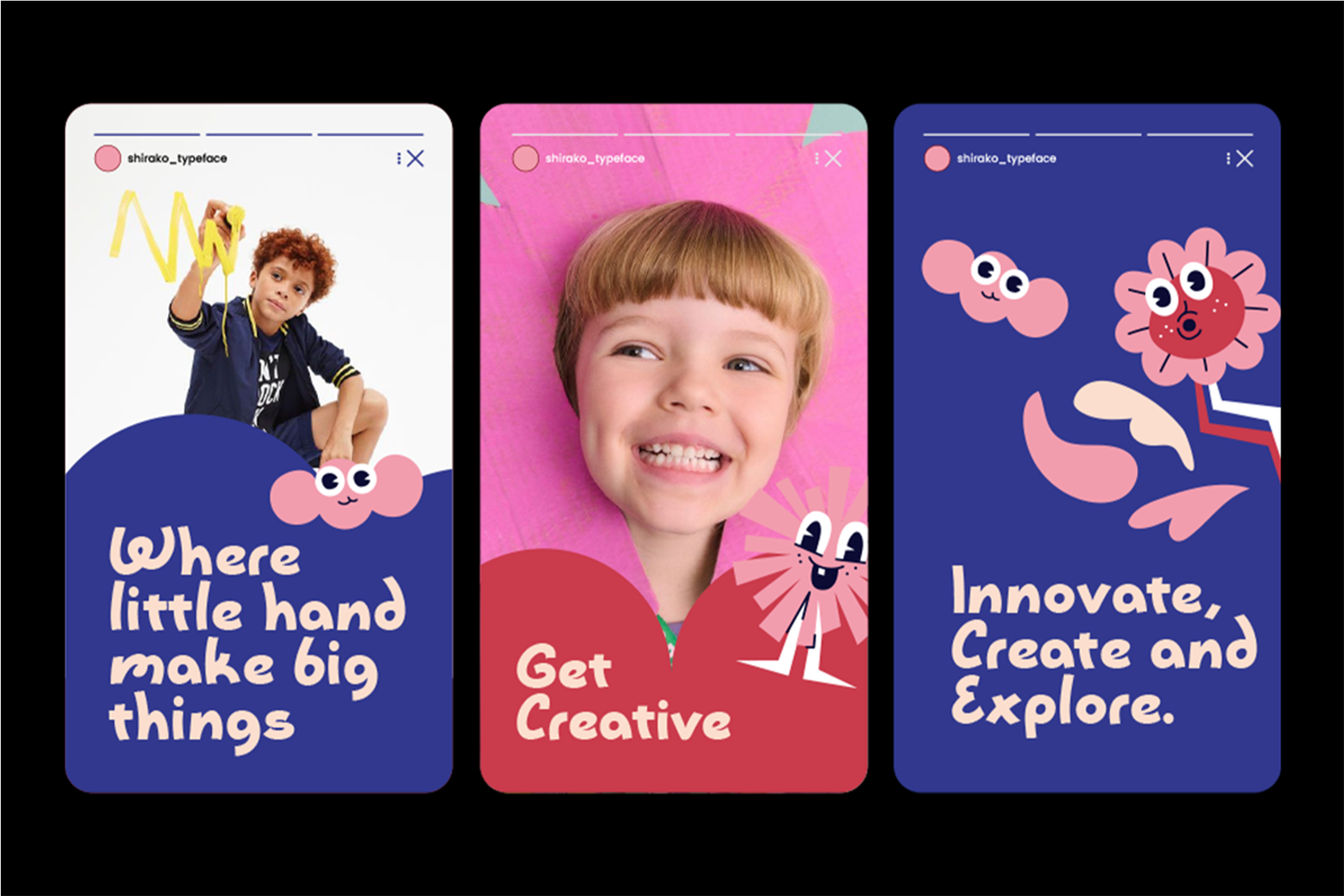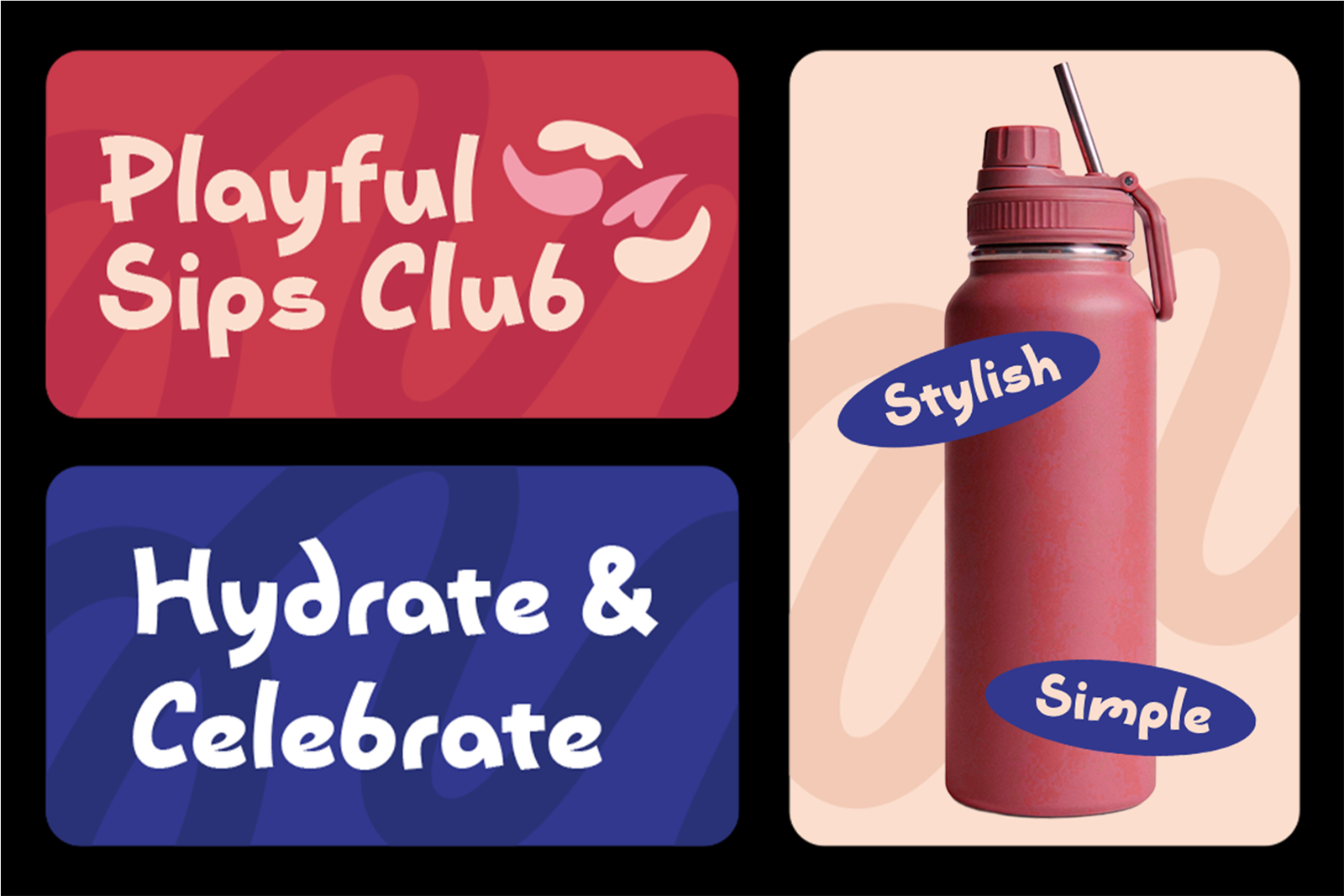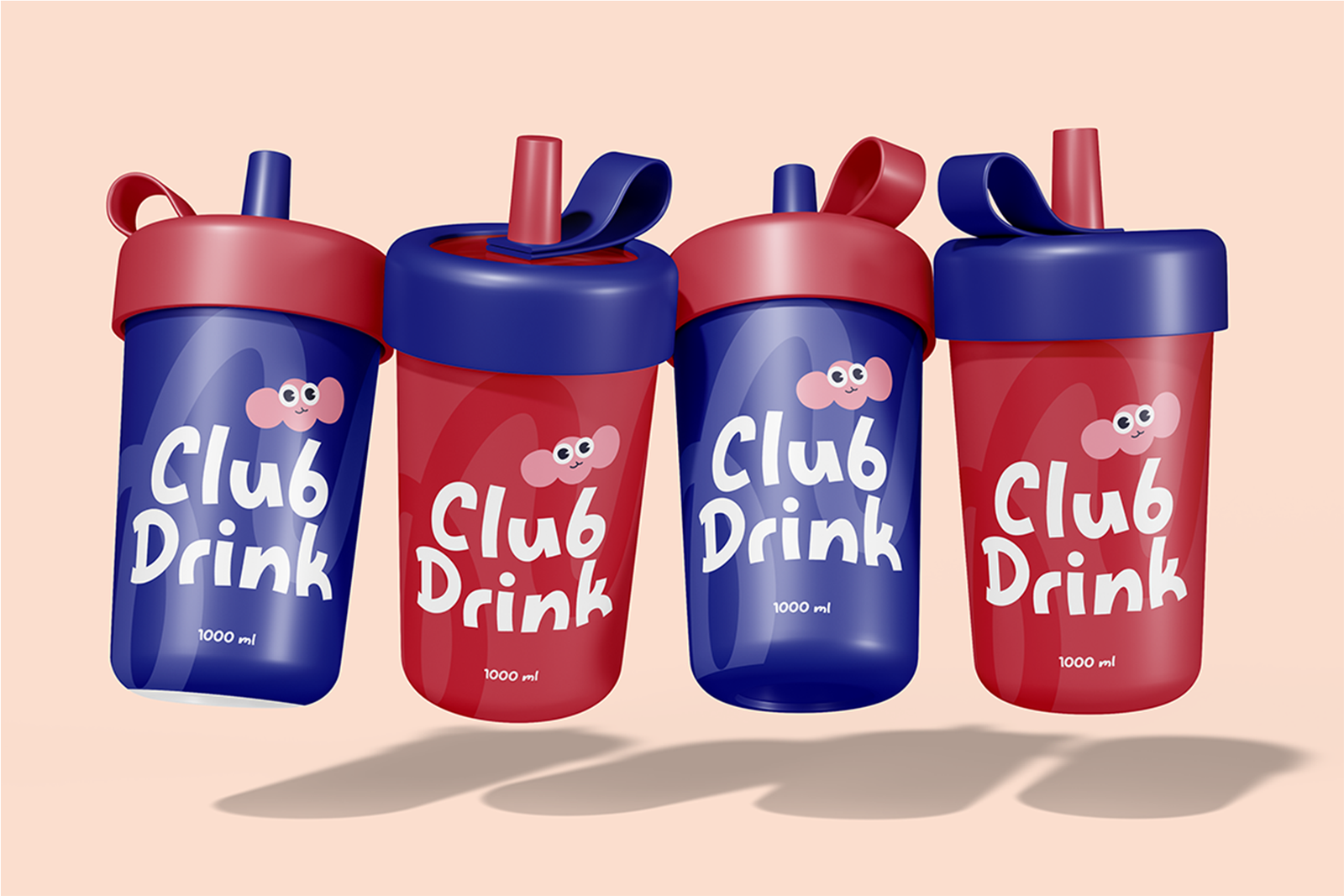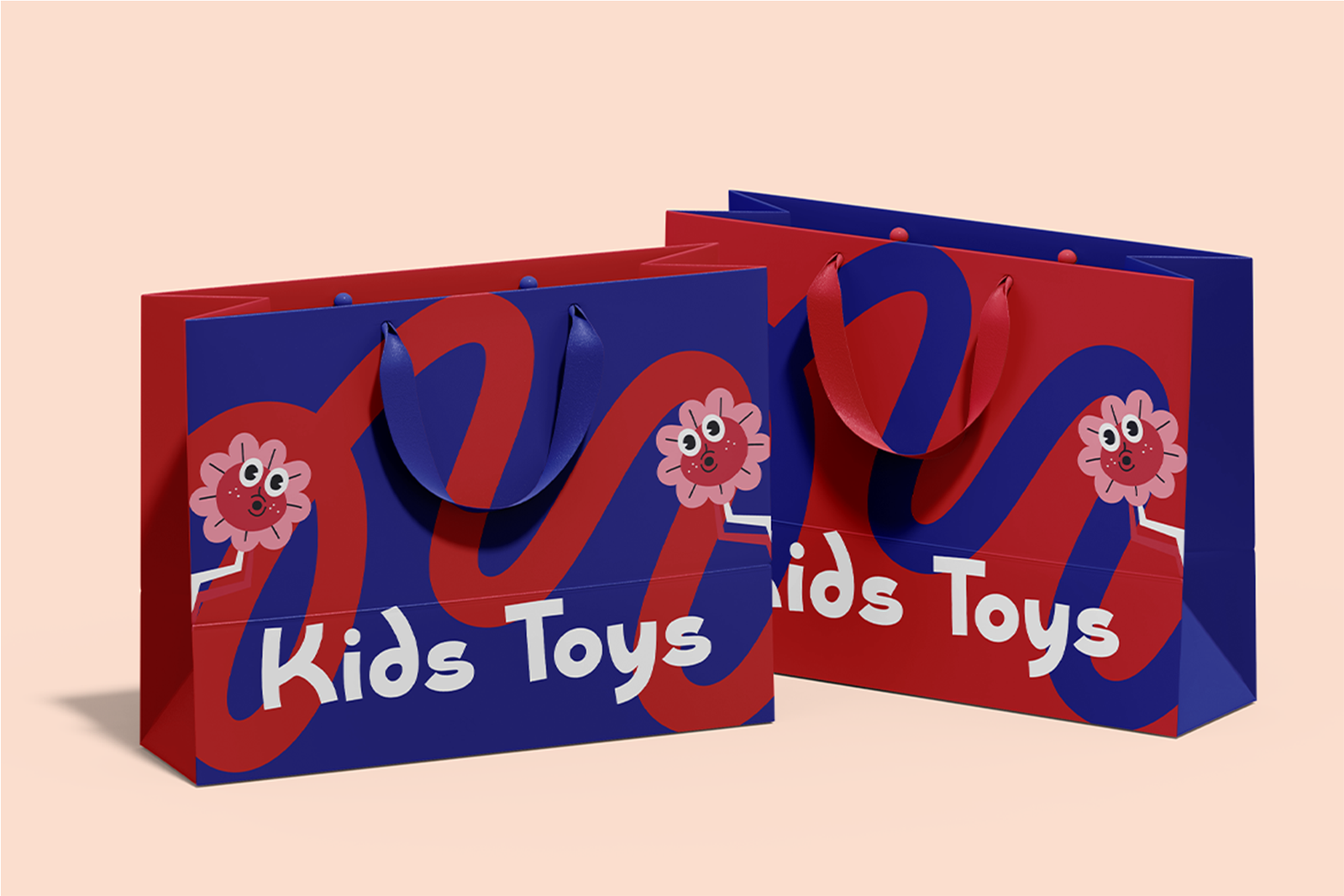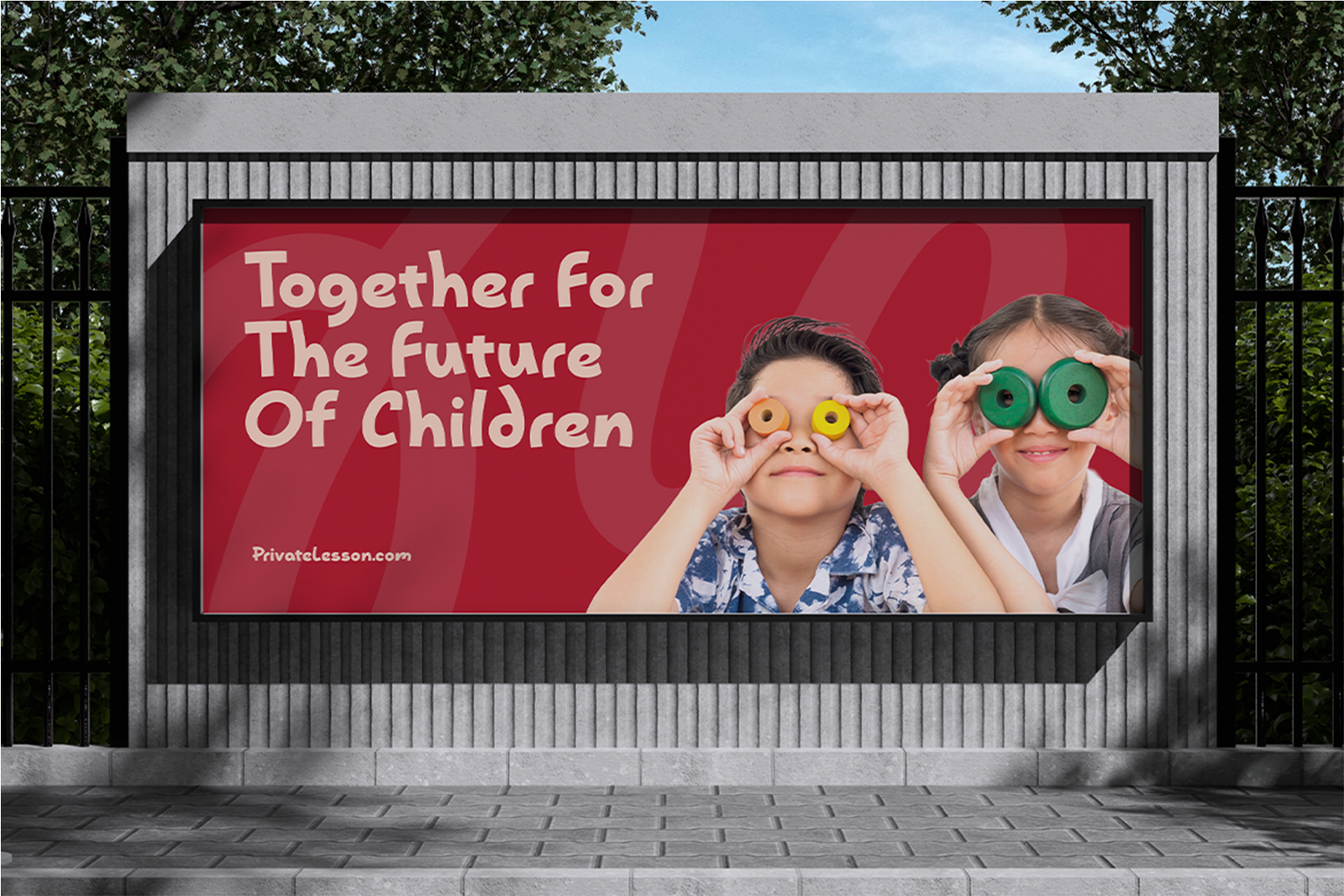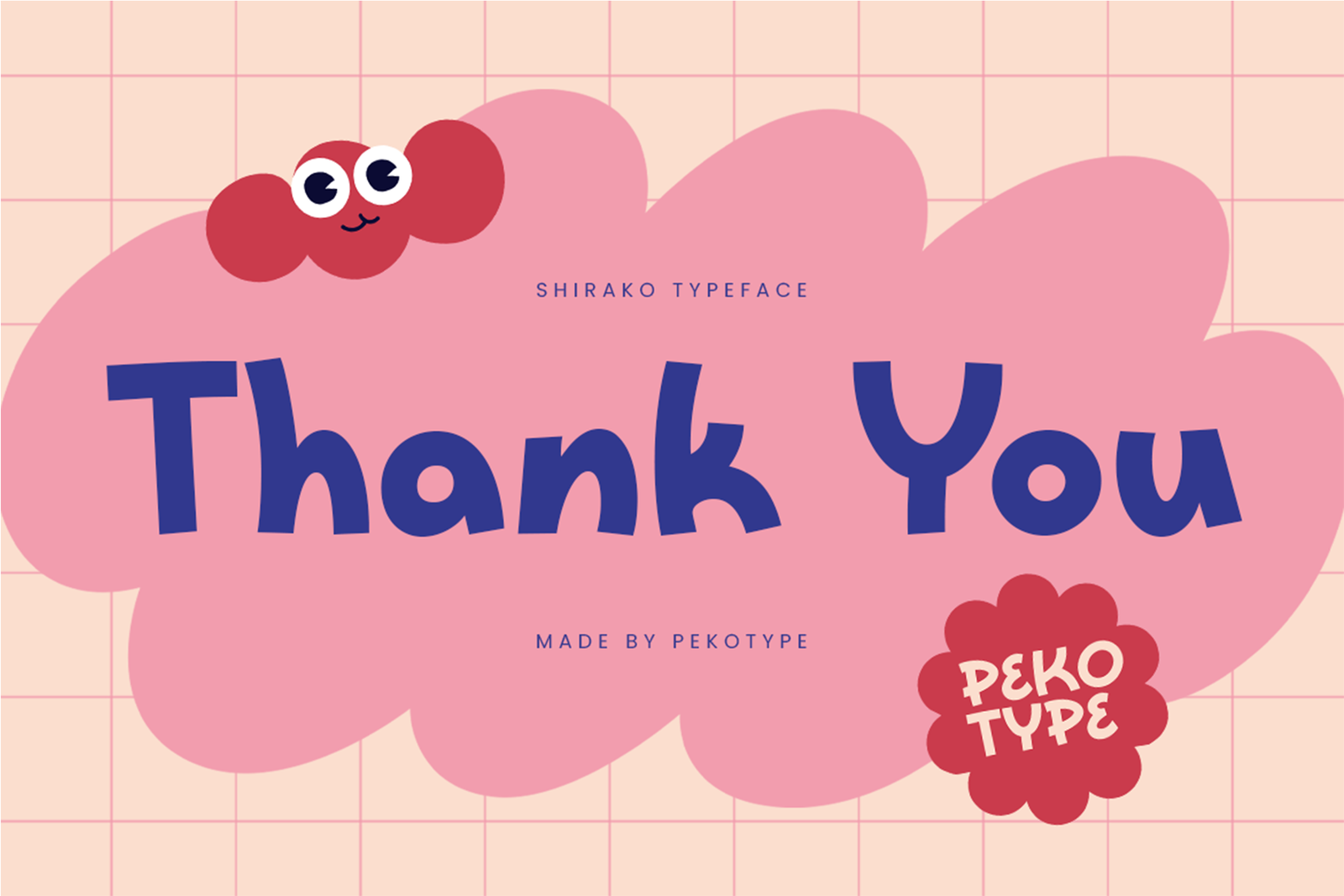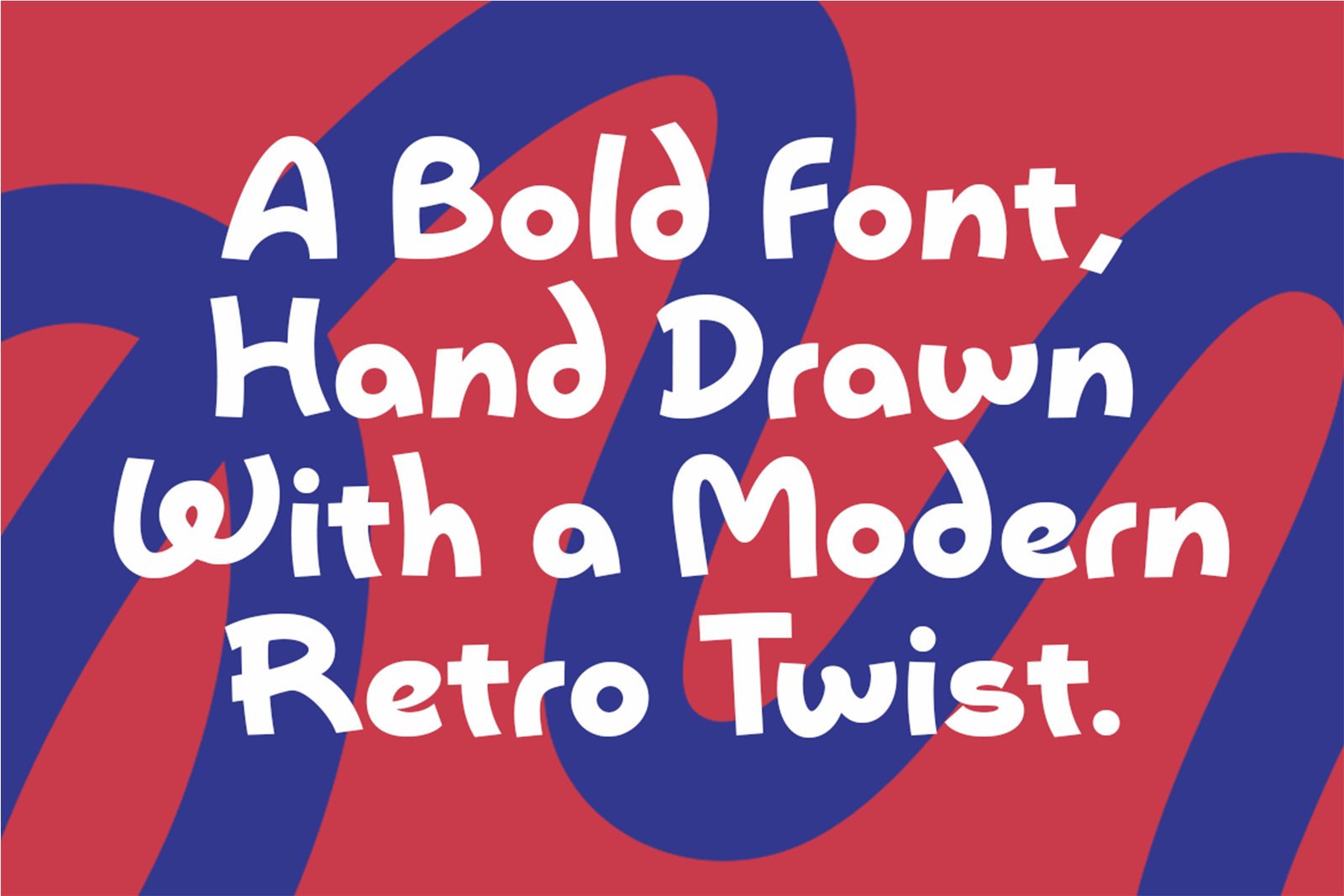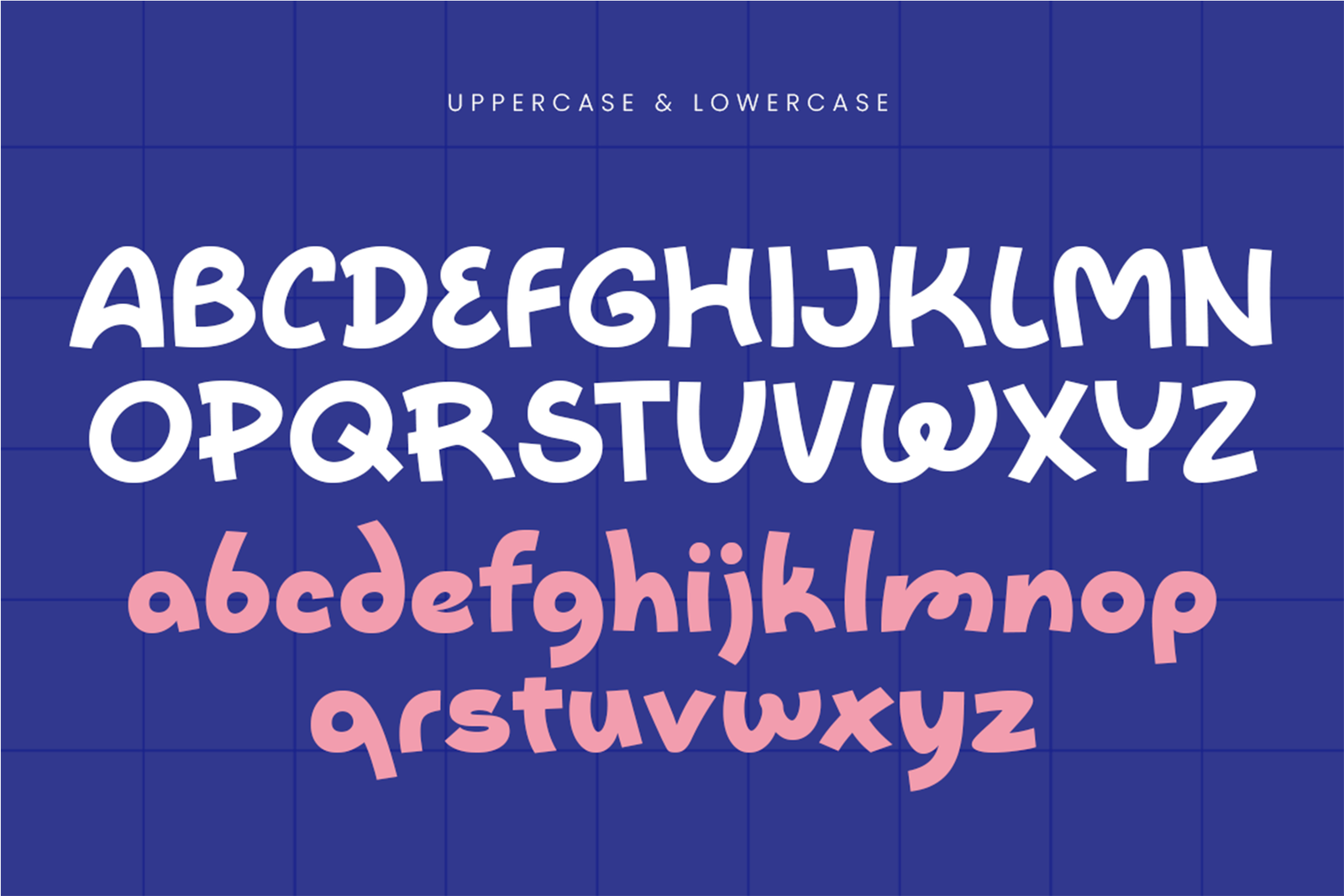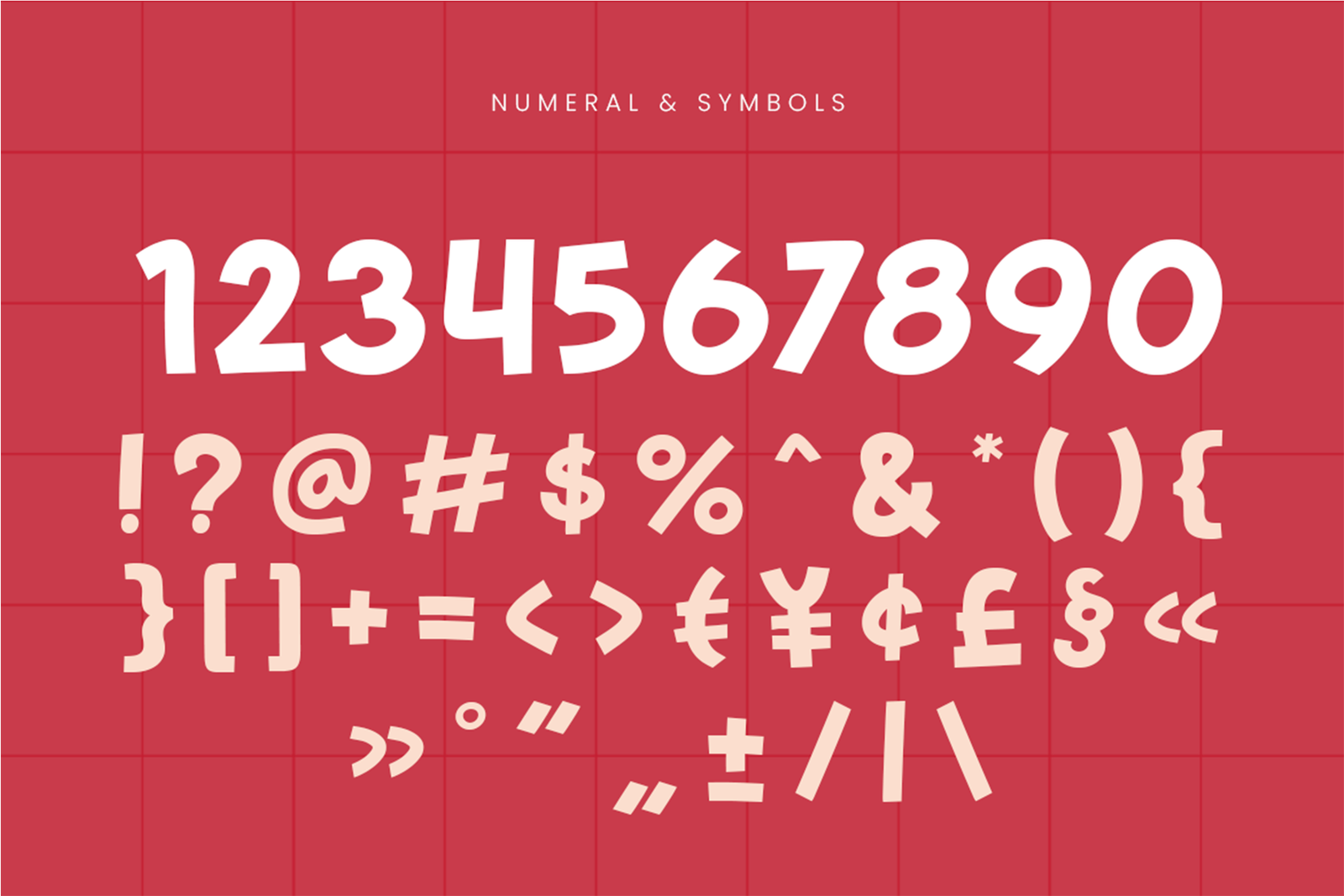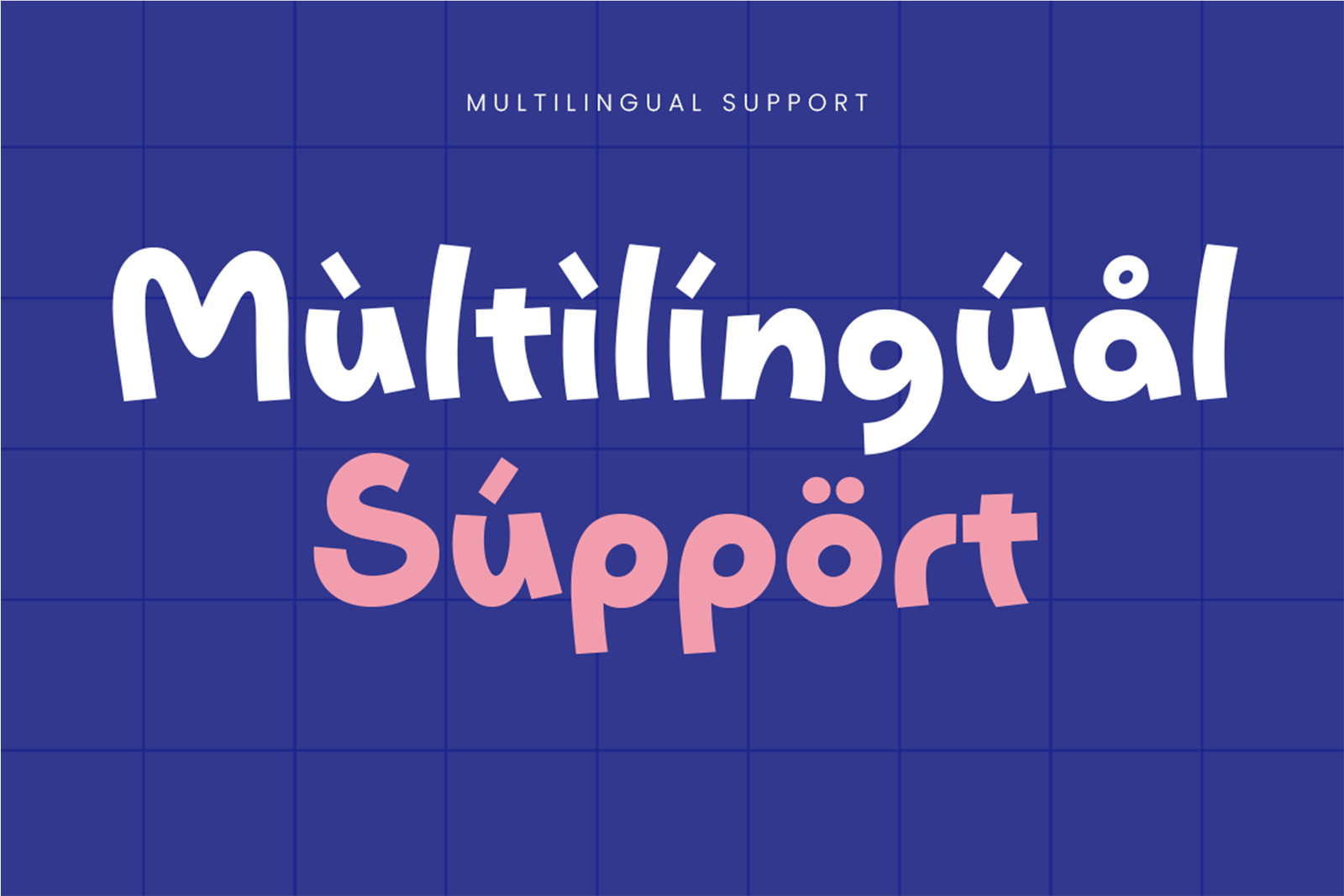
SHIRAKO Font is a playful handwritten display typeface with a friendly style, perfect for kids branding, logos, posters, packaging, and creative projects.
SHIRAKO Font – Playful Handwritten Display Typeface
SHIRAKO Font is a bold handwritten display font designed to bring a playful, friendly, and creative personality to your designs. Inspired by modern retro lettering and casual hand-drawn styles, this font features smooth strokes, rounded shapes, and a unique character that creates a fun visual impression. Its expressive style makes SHIRAKO the perfect choice for designs that need a cheerful, youthful, and memorable look.
This versatile font works perfectly for kids branding, posters, logos, packaging, social media graphics, invitations, and creative campaigns. It is also a great fit for children’s products, education materials, toy brands, lifestyle projects, and modern advertising designs. Whether you are creating a playful logo, colorful promotional artwork, product packaging, or engaging social media content, SHIRAKO helps your design stand out with a warm and energetic style. With uppercase and lowercase letters, numbers, symbols, punctuation, and multilingual support, this font provides flexibility for various creative needs. Choose SHIRAKO to add a fun, handmade, and charming touch to your next design project.
Features:
• Uppercase and Lowercase
• Number, Symbol, & Punctuation
• Multilingual
SHIRAKO Font – Playful Handwritten Display